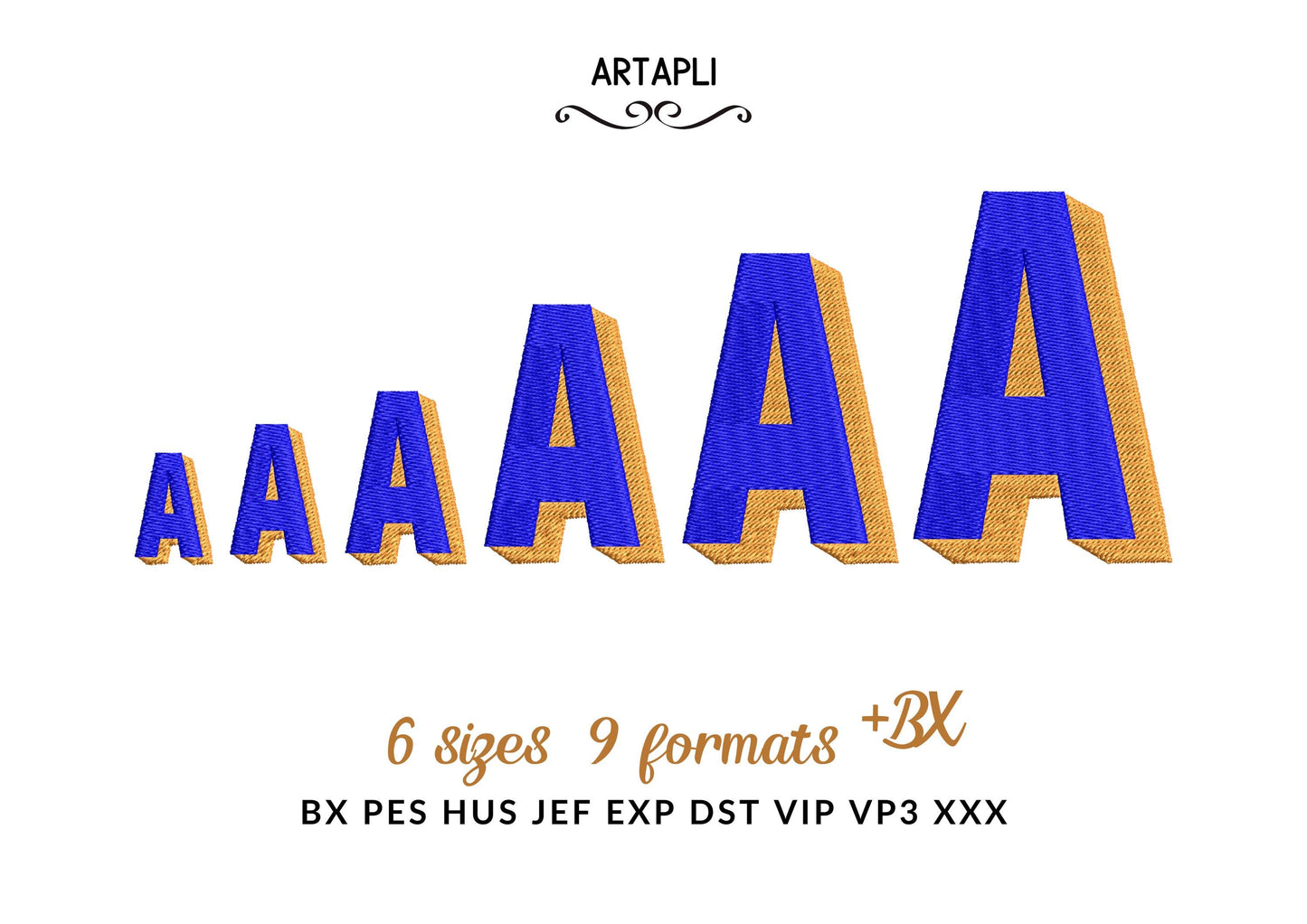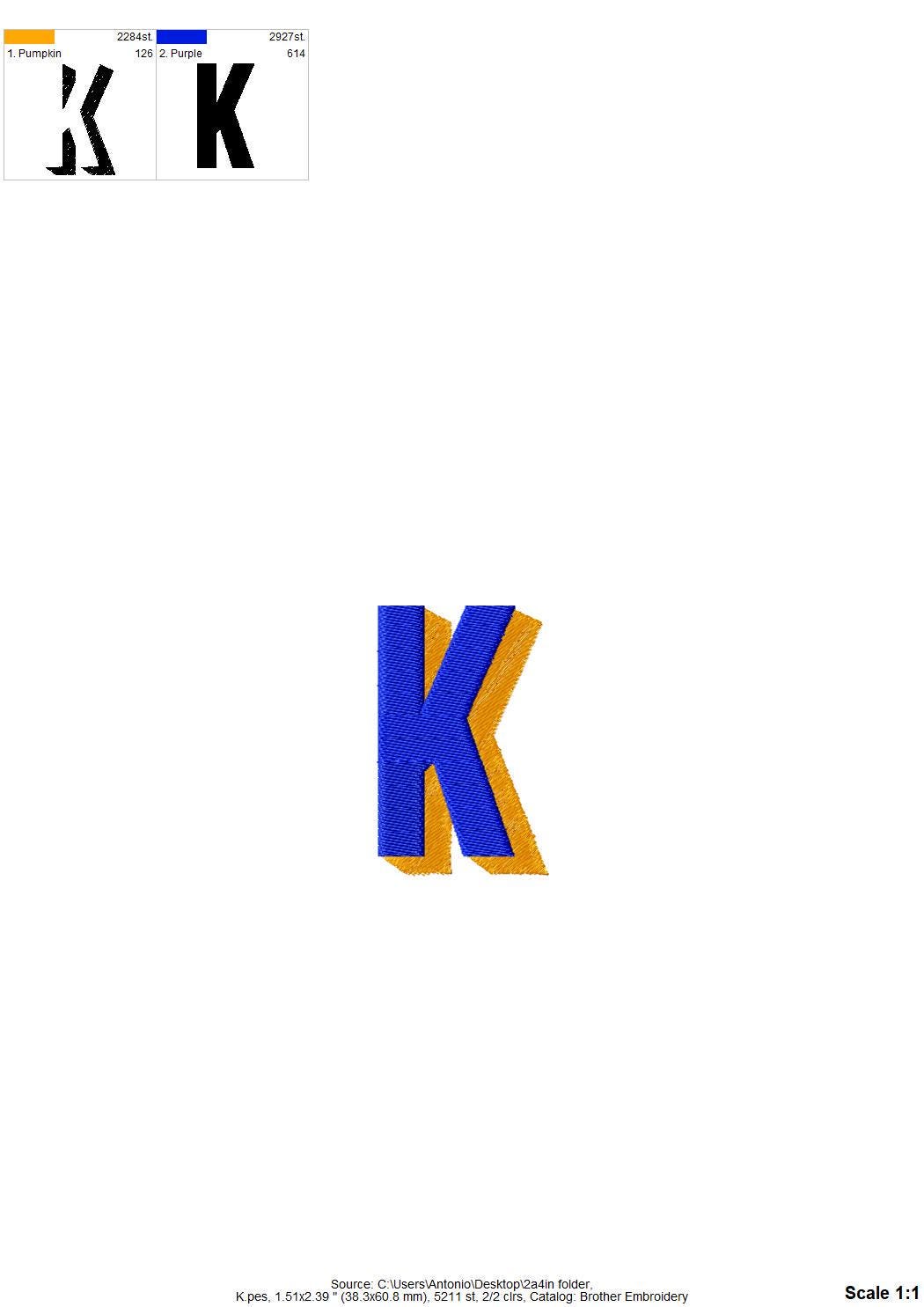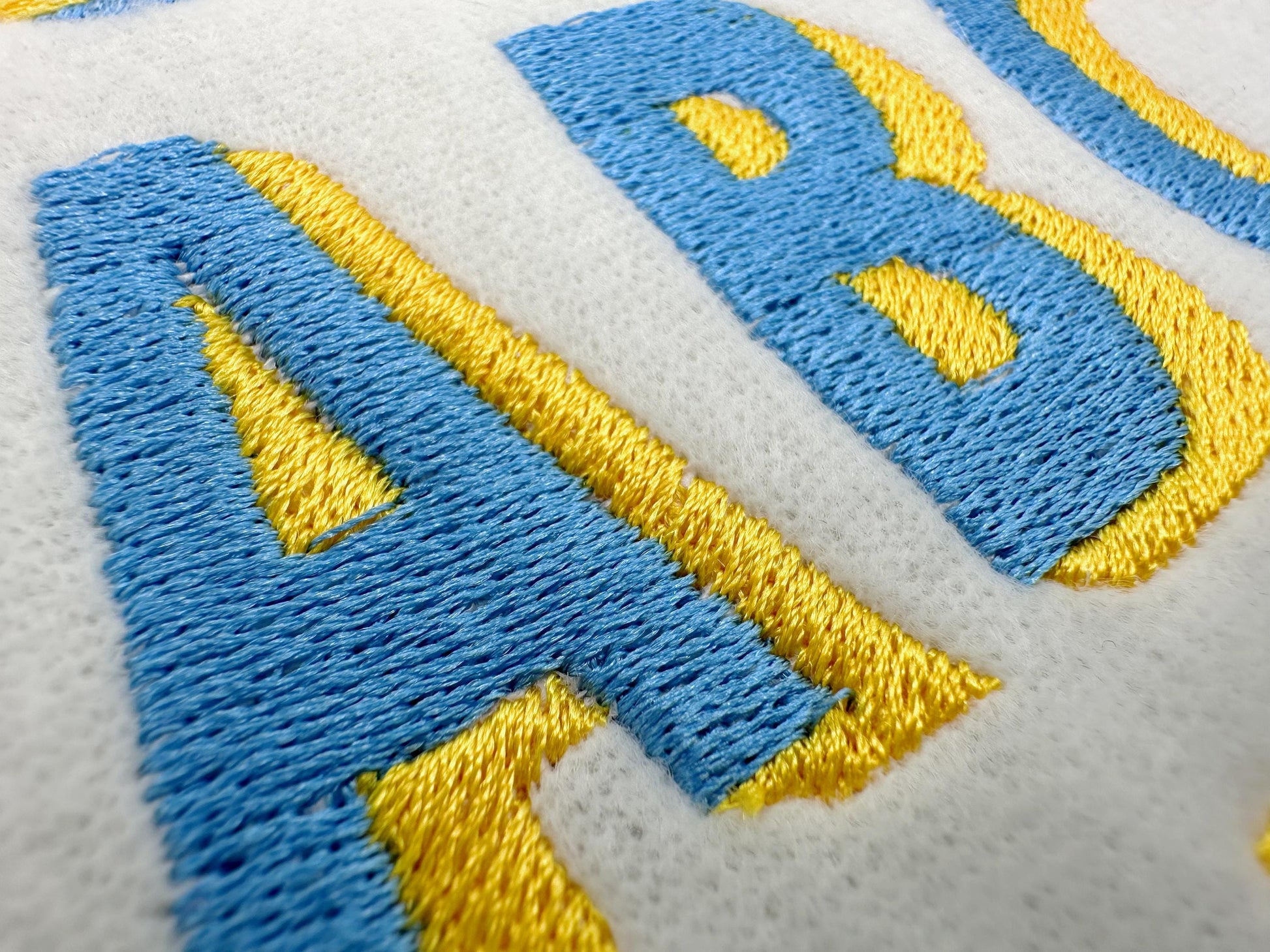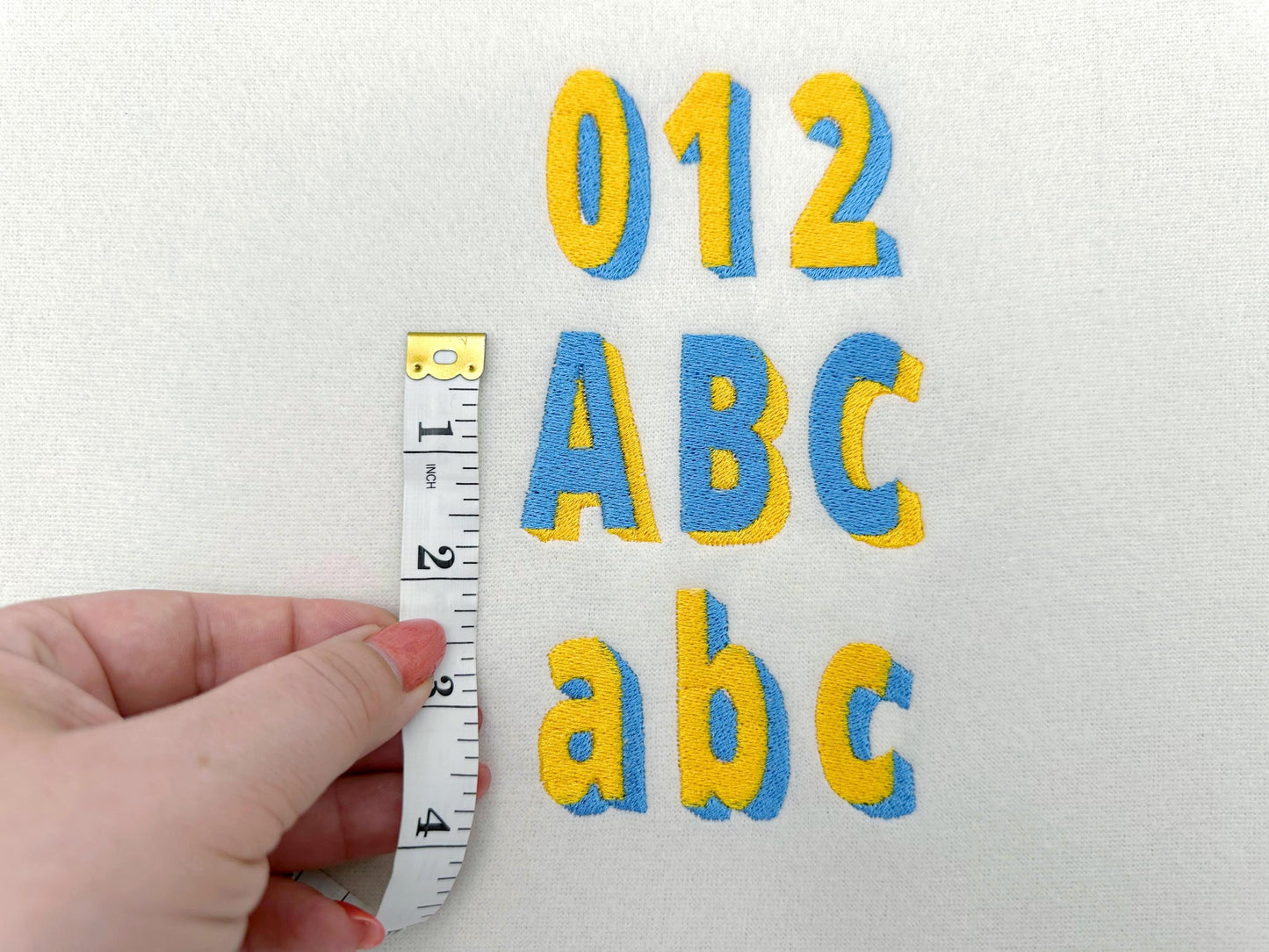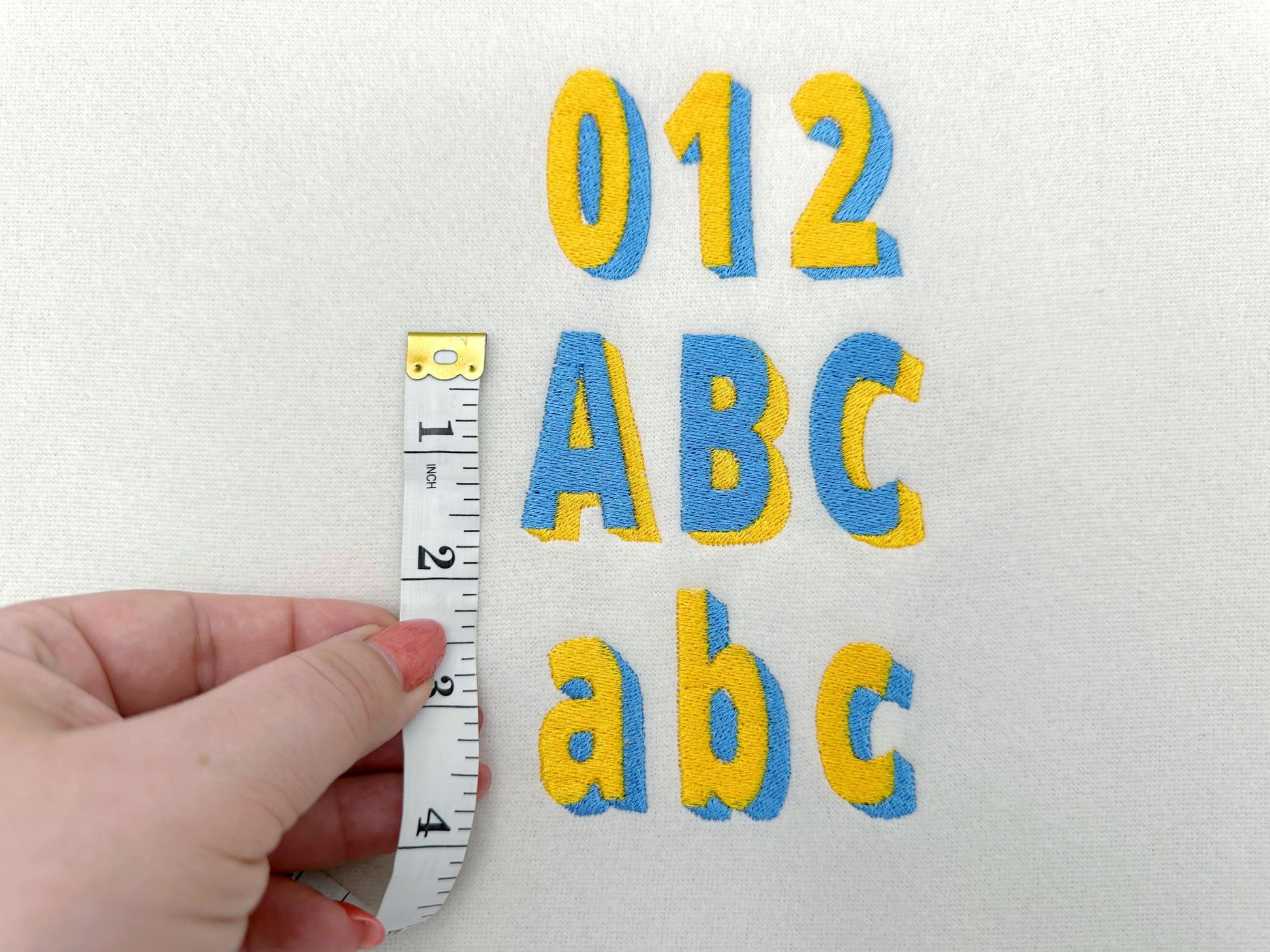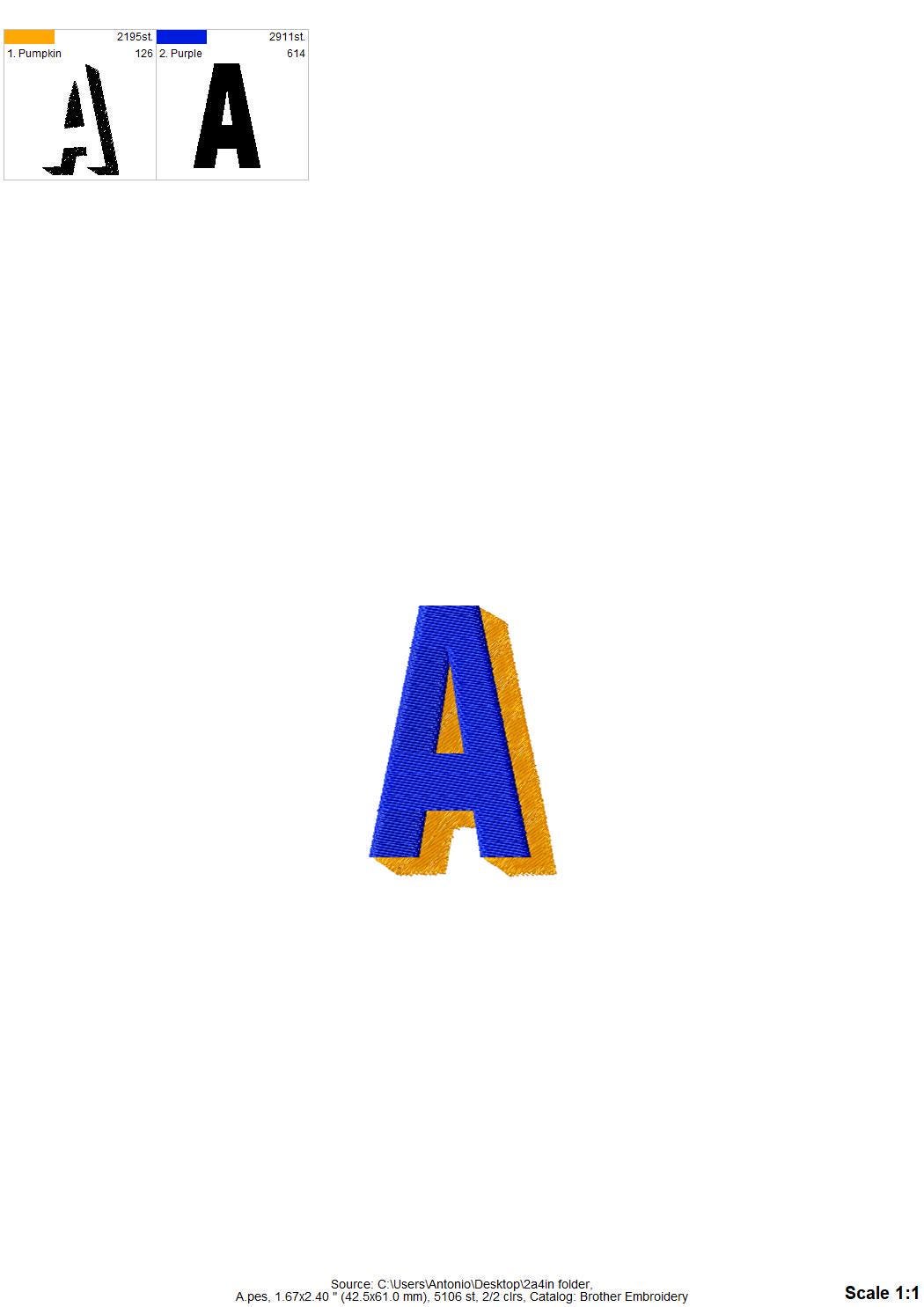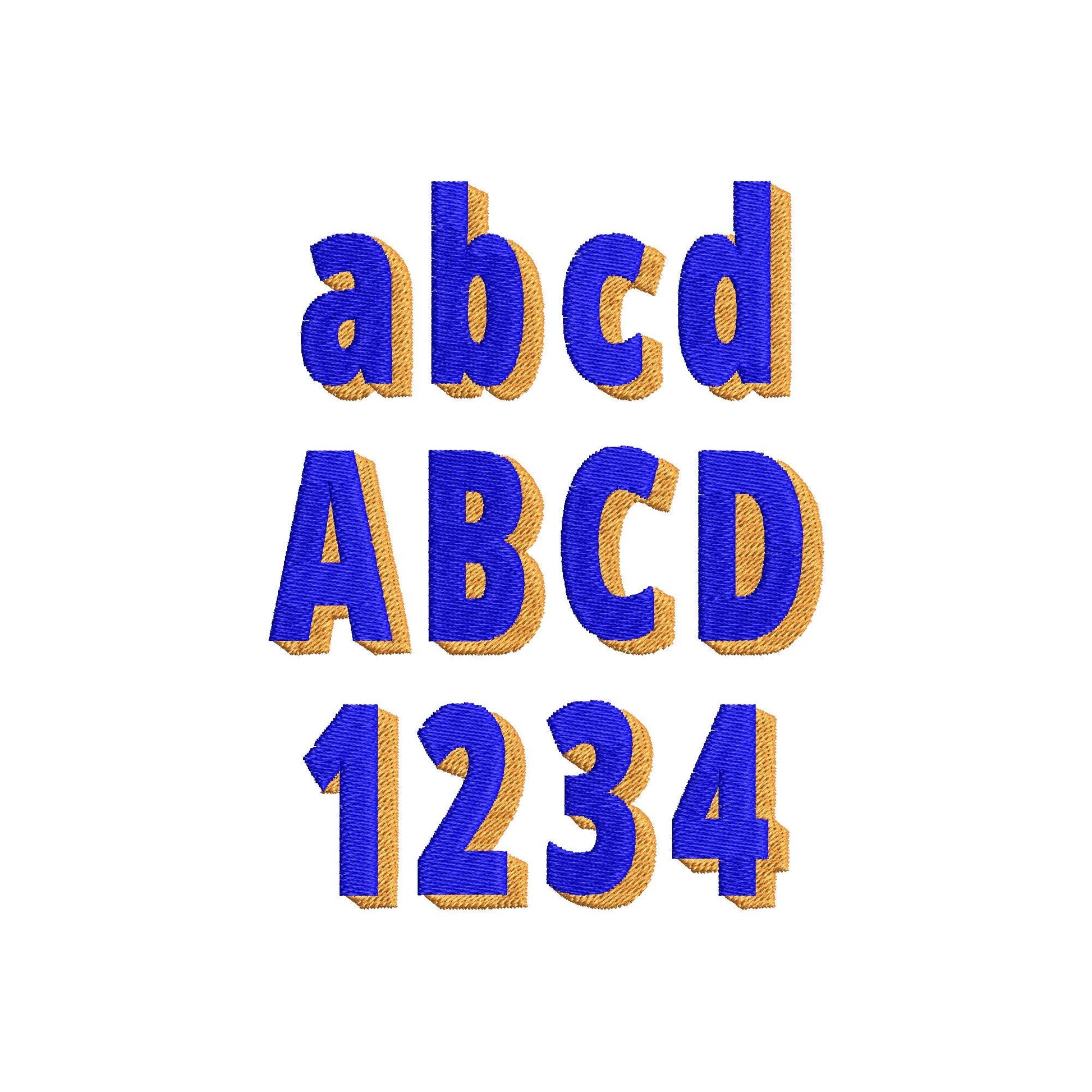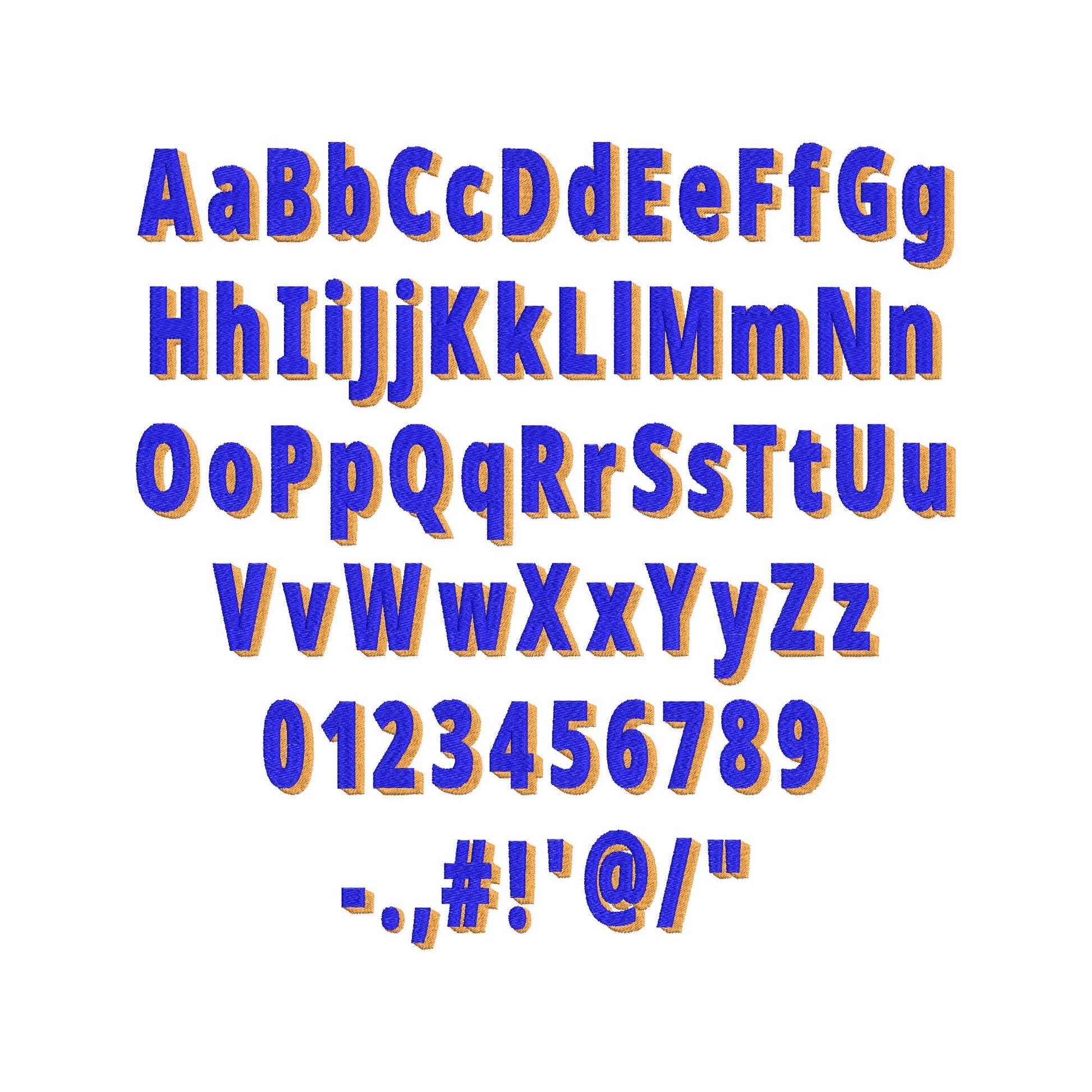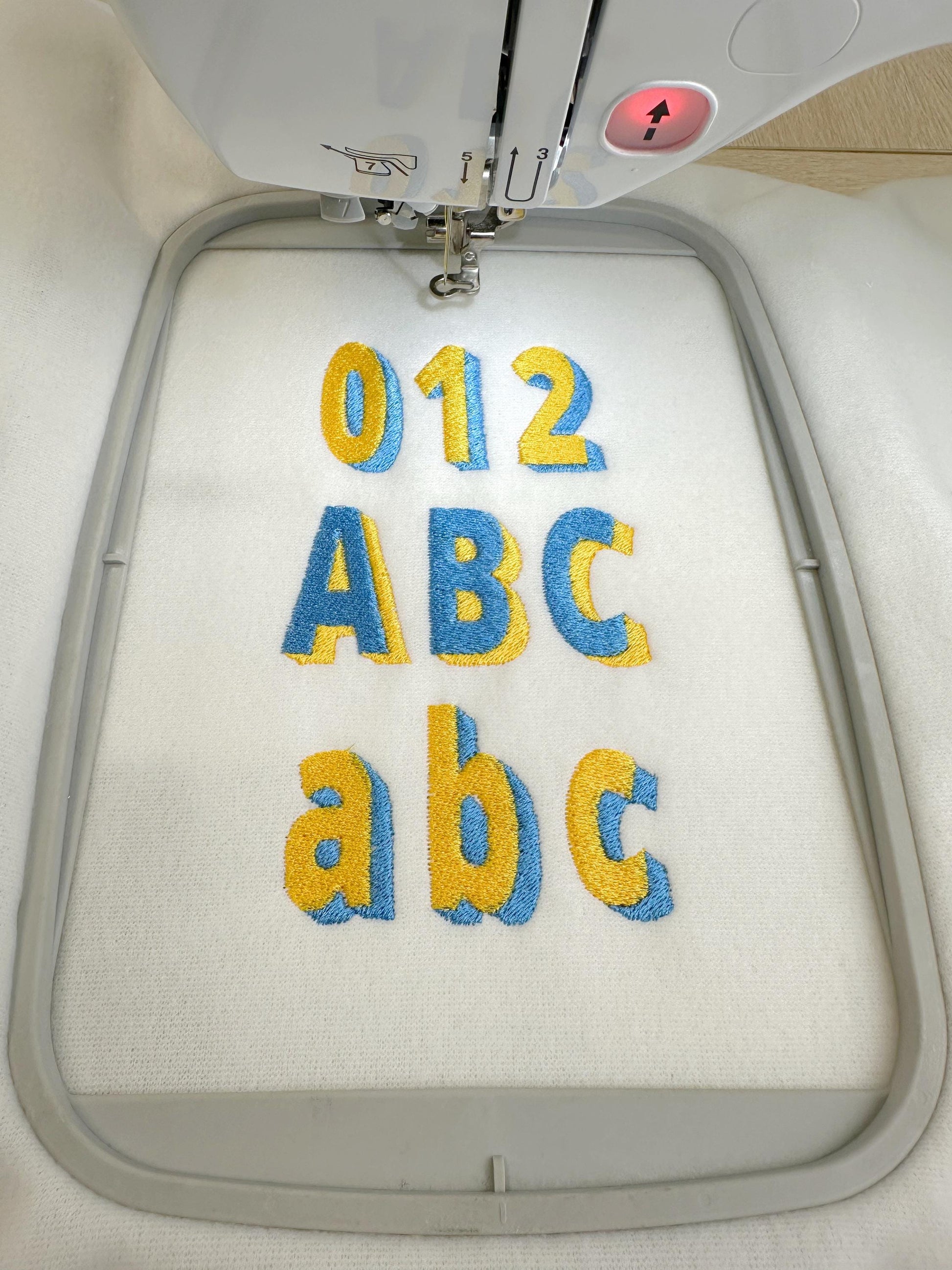
Shadow Font Fill Stitch
The letters come in six sizes: 0.8, 1.1, 1.3, 2, 2.4 and 3 inches. Includes uppercase and lowercase letters, numbers 0-9 and punctuation.
- Shadow fill stitch font: uppercase and lowercase letters, numbers 0-9 and punctuation
- 6 letter sizes, 0.8 to 3 in